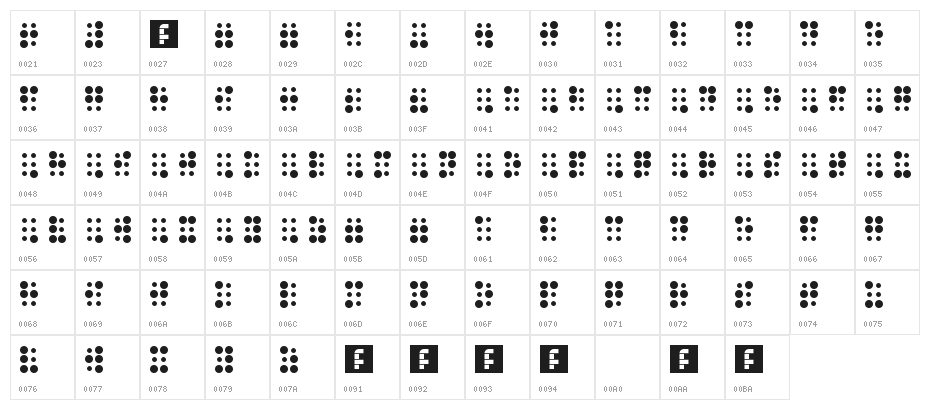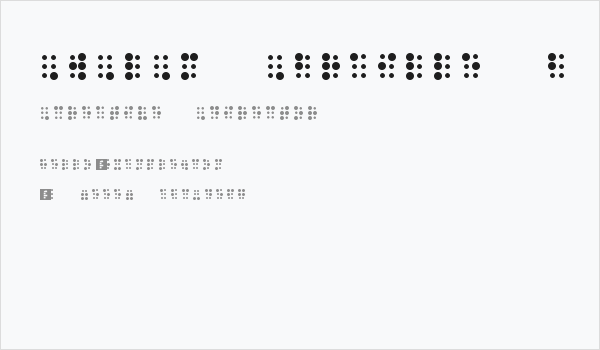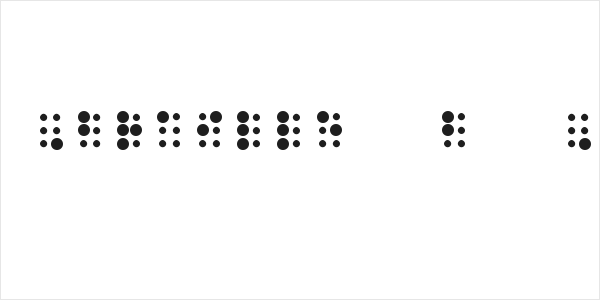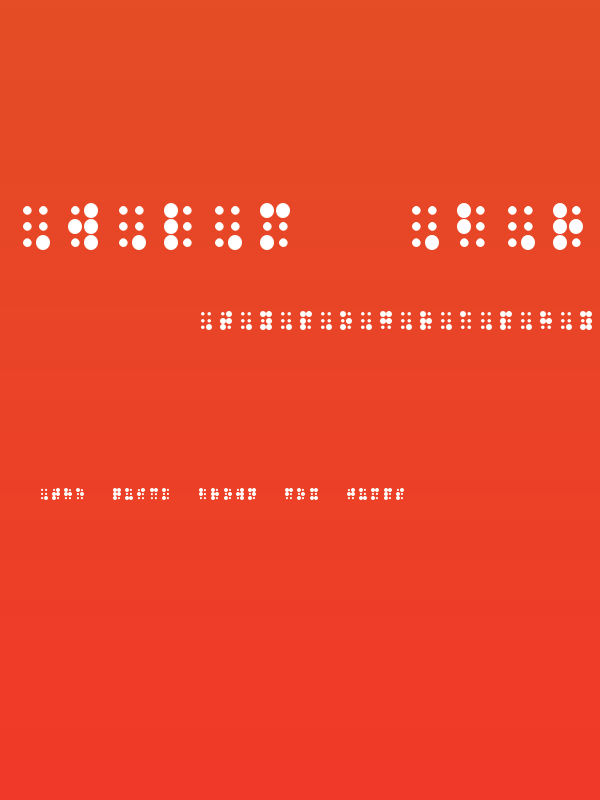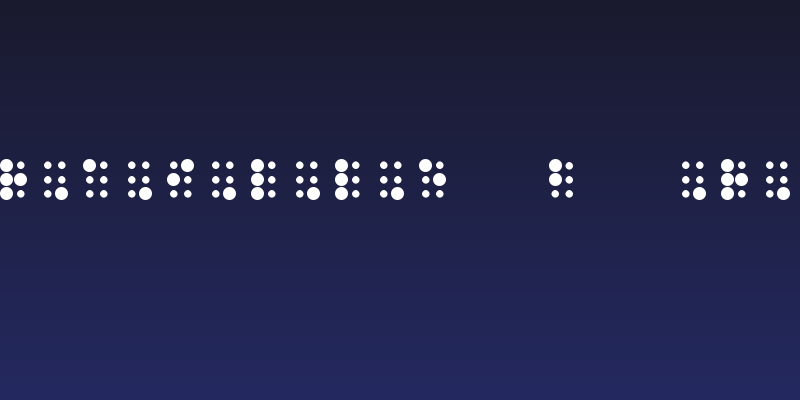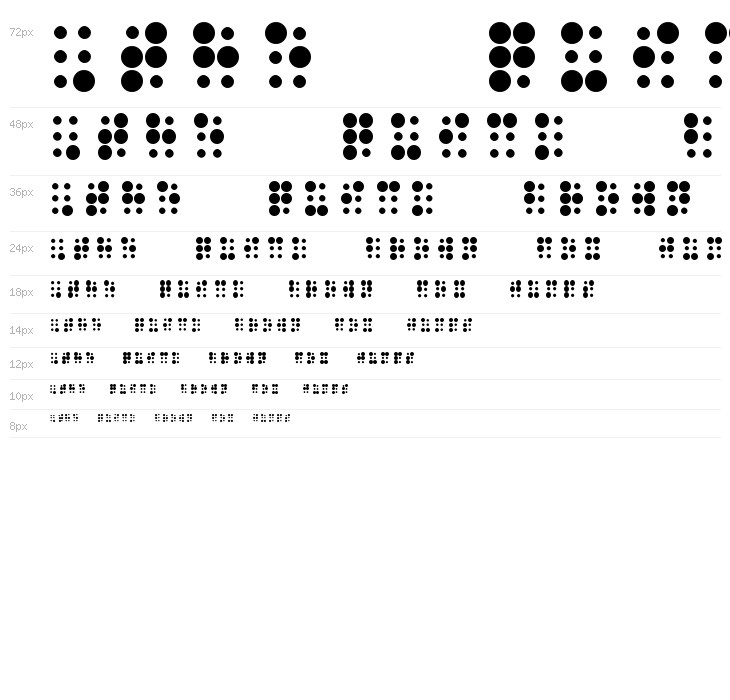
WLM Braille 2 Regular Font
WLM Braille 2 Regular Description
This font is a representation of Braille, the tactile writing system used by people who are visually impaired. It consists of patterns of raised dots arranged in cells of up to six dots in a 3x2 configuration. Each cell represents a letter, numeral, or punctuation mark. The design is simple yet functional, focusing on clarity and readability through touch. The dots are evenly spaced, ensuring that each character is distinct and easily distinguishable by touch.
| Overall Style | Functional |
| Use Case | Accessibility, Educational materials |
| Proposed Projects | Ideal for educational materials for the visually impaired, signage in public spaces, and any project aiming to increase accessibility. |